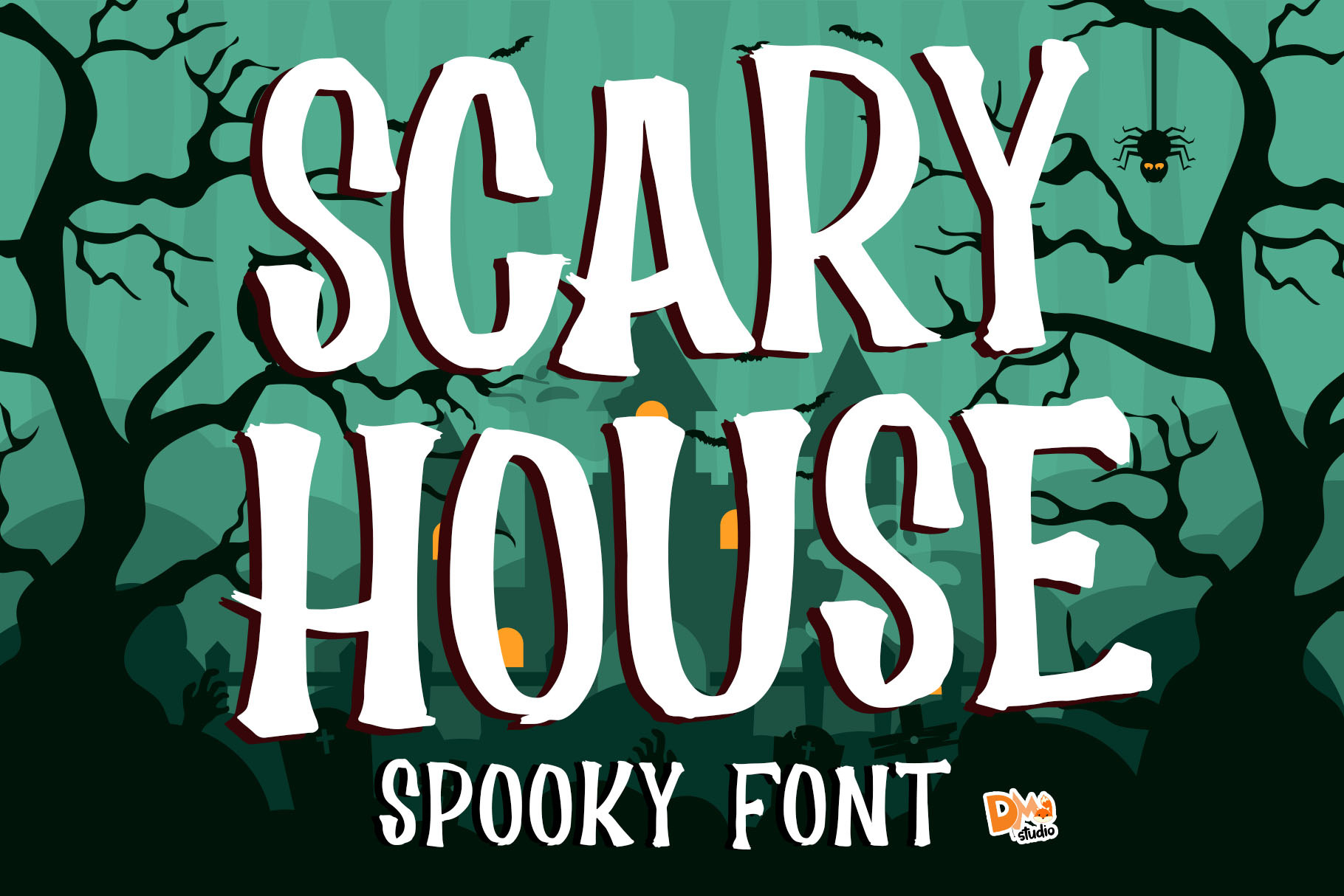
Scary House - Spooky Font
Scary House is a rough and spooky display font, great for your Halloween moment!
- All in caps only
- Symbols and punctuations